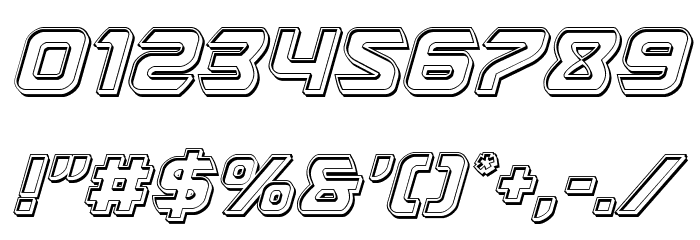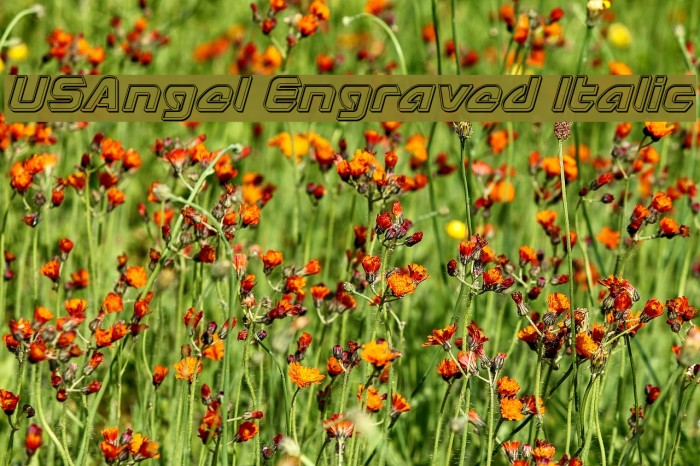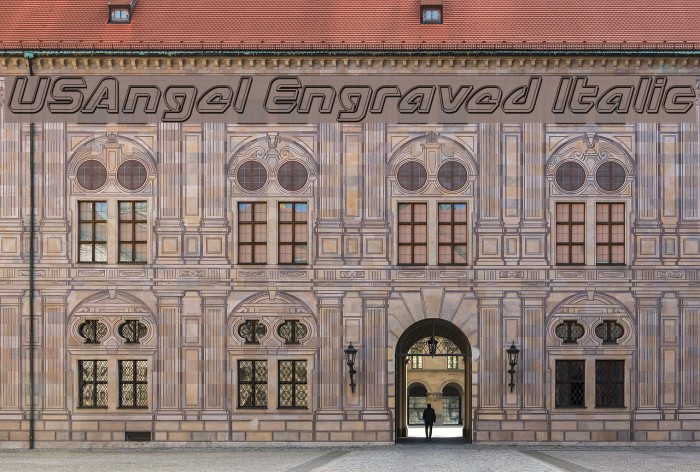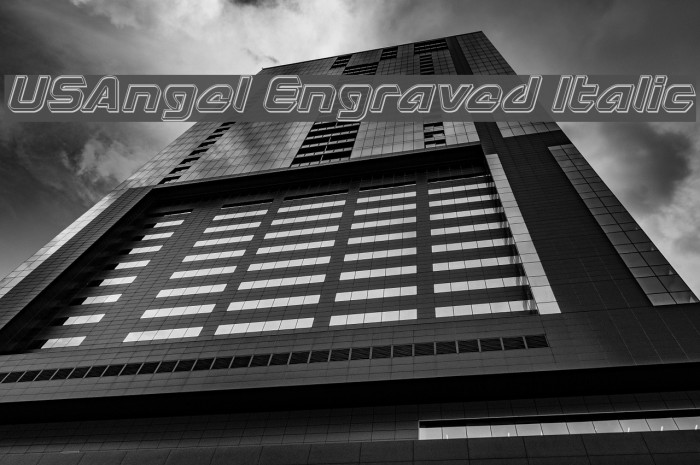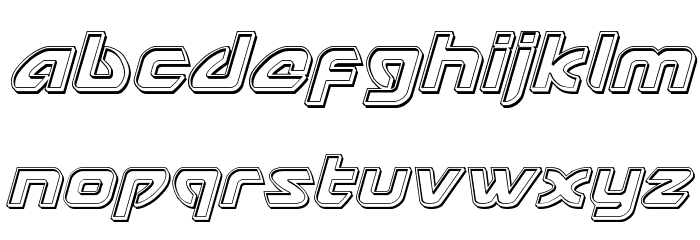
USAngel Engraved Italic Font
USAngel Engraved Italic Description
This font features a bold, engraved style with a distinct italic slant, giving it a dynamic and modern appearance. The characters are outlined with a double line, creating a three-dimensional effect that adds depth and interest. The uppercase and lowercase letters maintain a consistent style, with sharp angles and clean lines that enhance readability. The numerals and special characters are designed to match the overall aesthetic, making this font versatile for various design needs. Its unique engraved look makes it stand out, suitable for projects that require a touch of sophistication and modernity.
| Proposed Projects | Ideal for branding, posters, headlines, and any design project that requires a modern and sophisticated touch. |